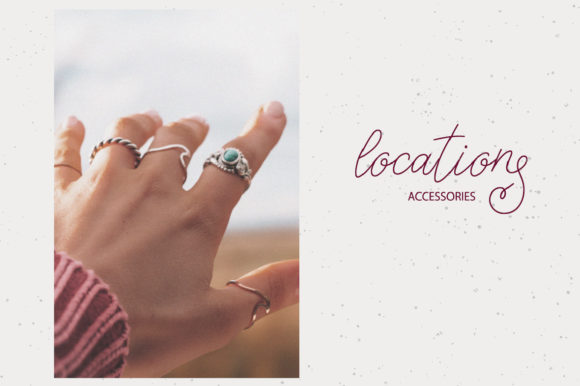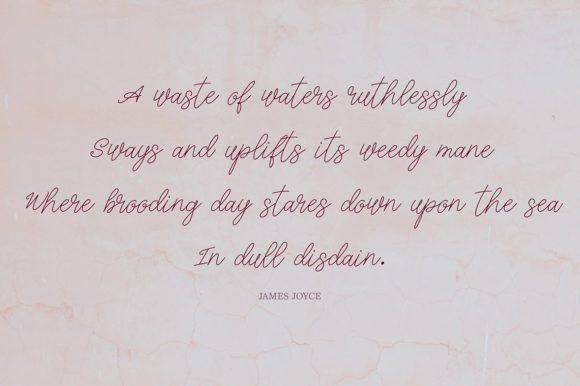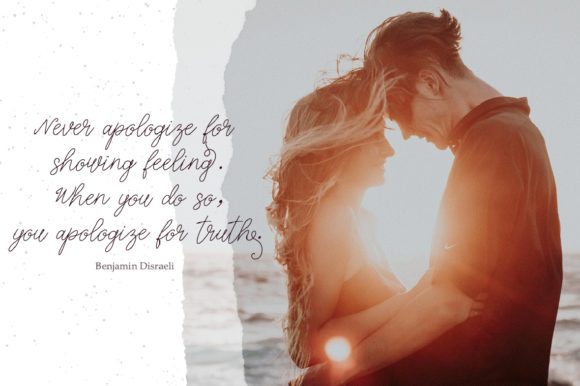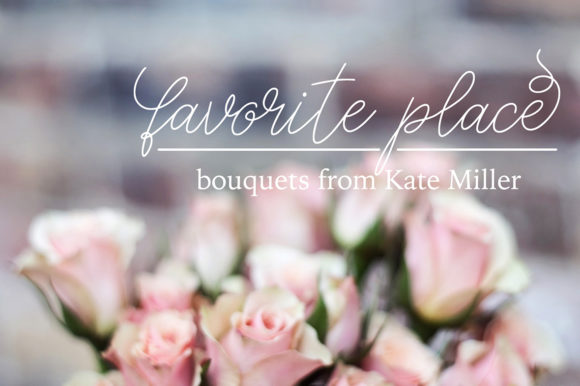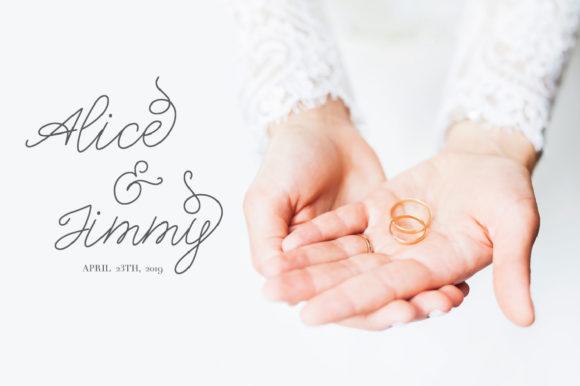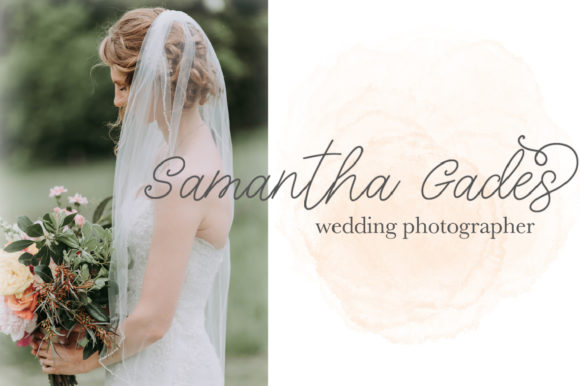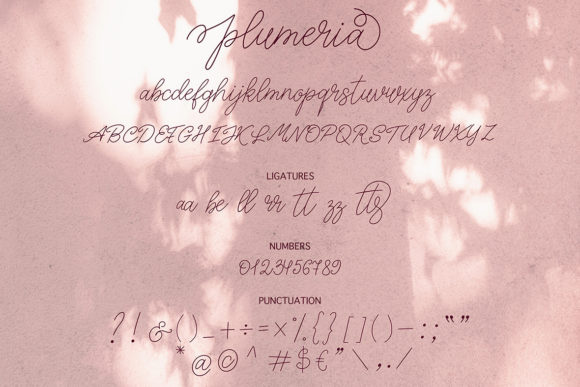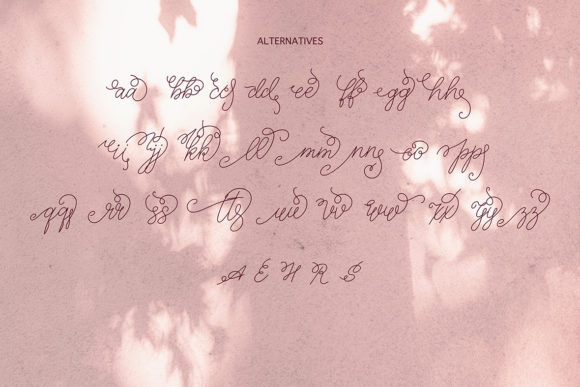
Plumeria Font
About Plumeria Font
Plumeria is an elegant handwritten font featuring thin flowing characters. It will add a romantic touch to any crafting project!